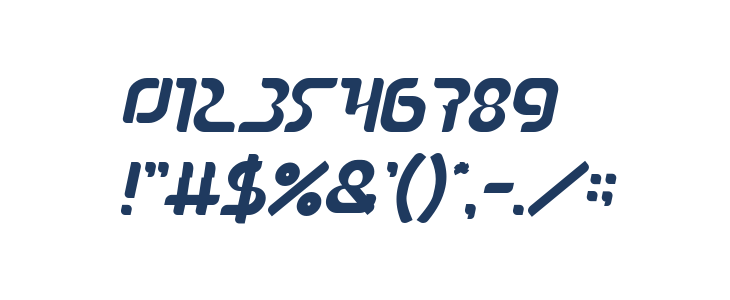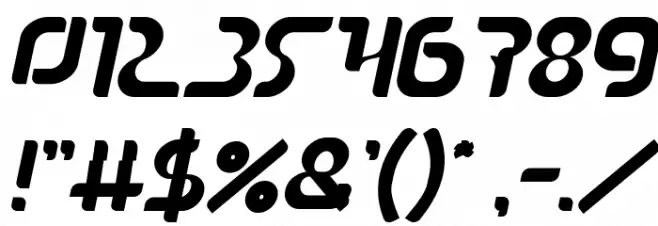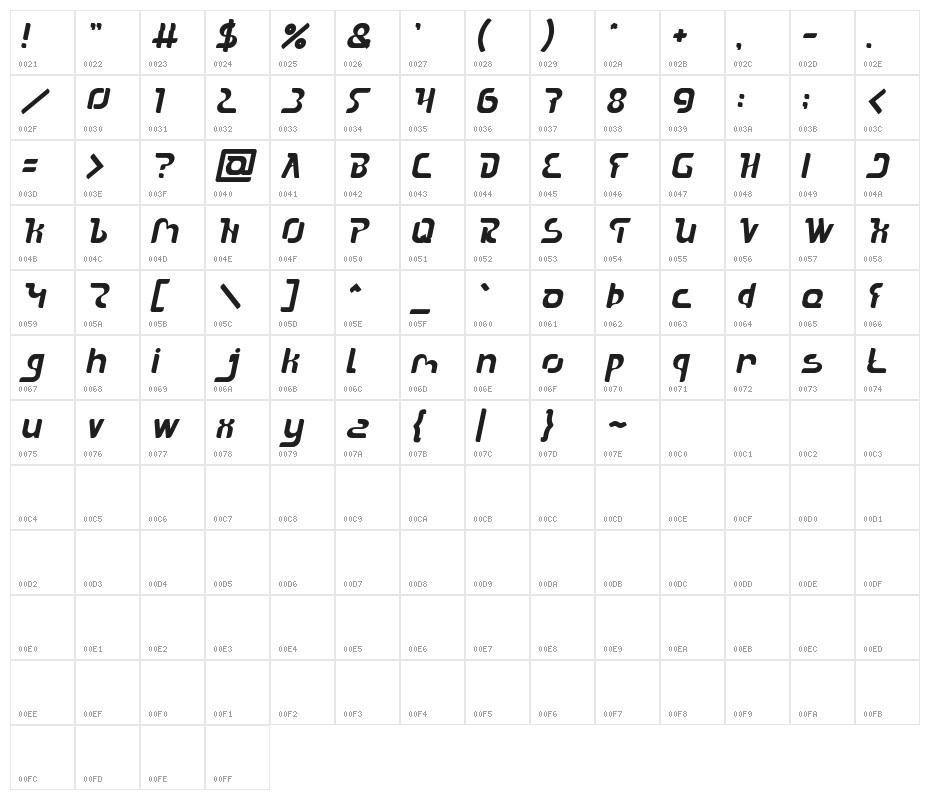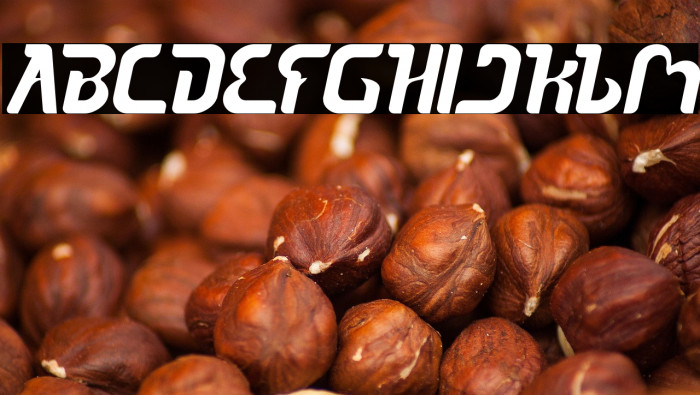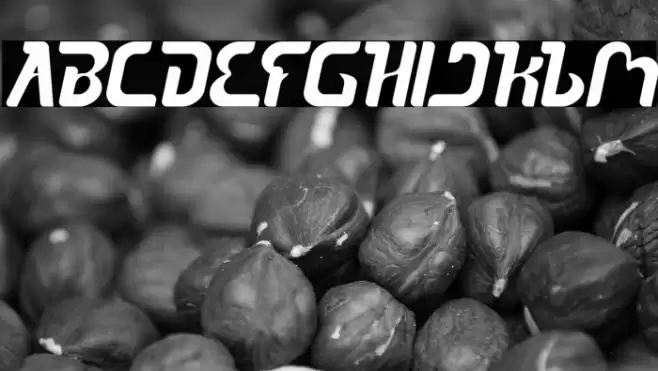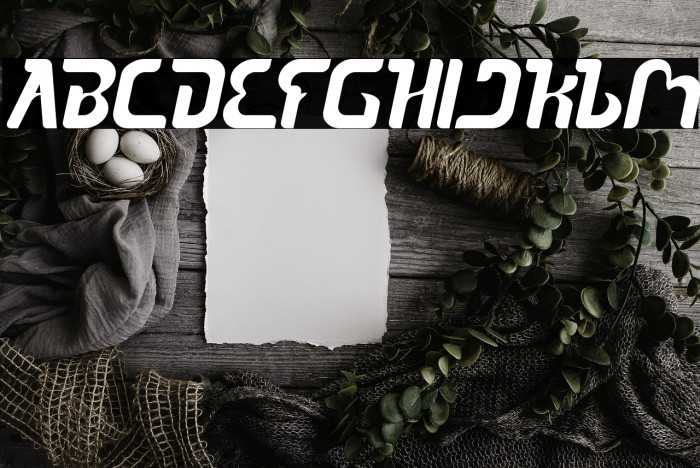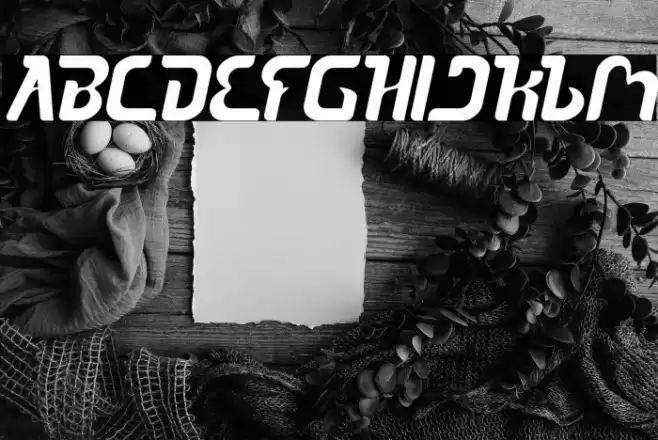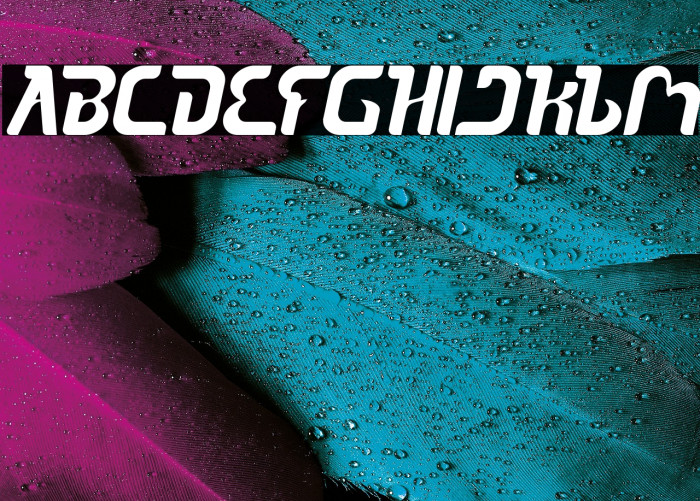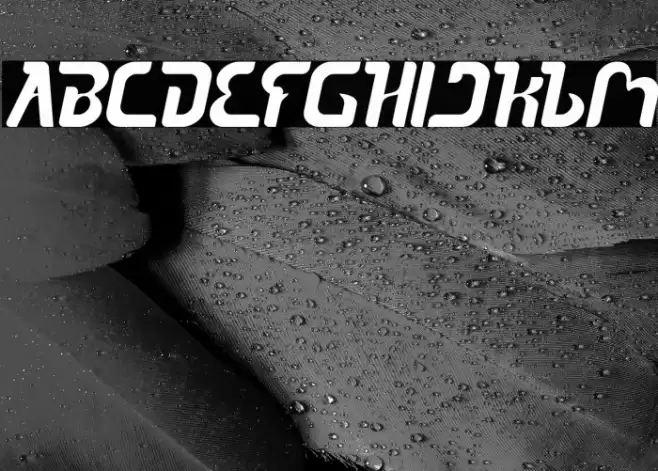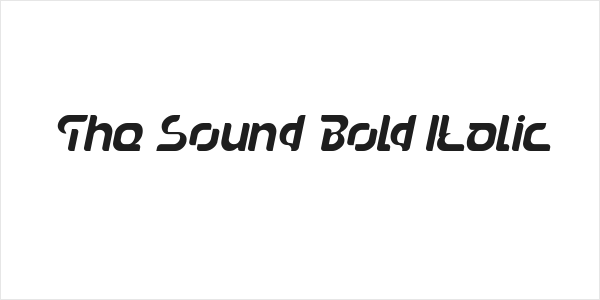
The Sound Bold Italic Font
The Sound Bold Italic Description
This font features a bold and italicized style with a modern and dynamic appearance. The characters are designed with a forward-leaning slant, giving a sense of motion and energy. The strokes are thick and consistent, providing a strong visual impact. The uppercase and lowercase letters maintain a cohesive look, with rounded edges and smooth curves that enhance readability. The numbers and special characters follow the same design principles, ensuring uniformity across all elements. This font is ideal for projects that require a bold statement and a contemporary feel.